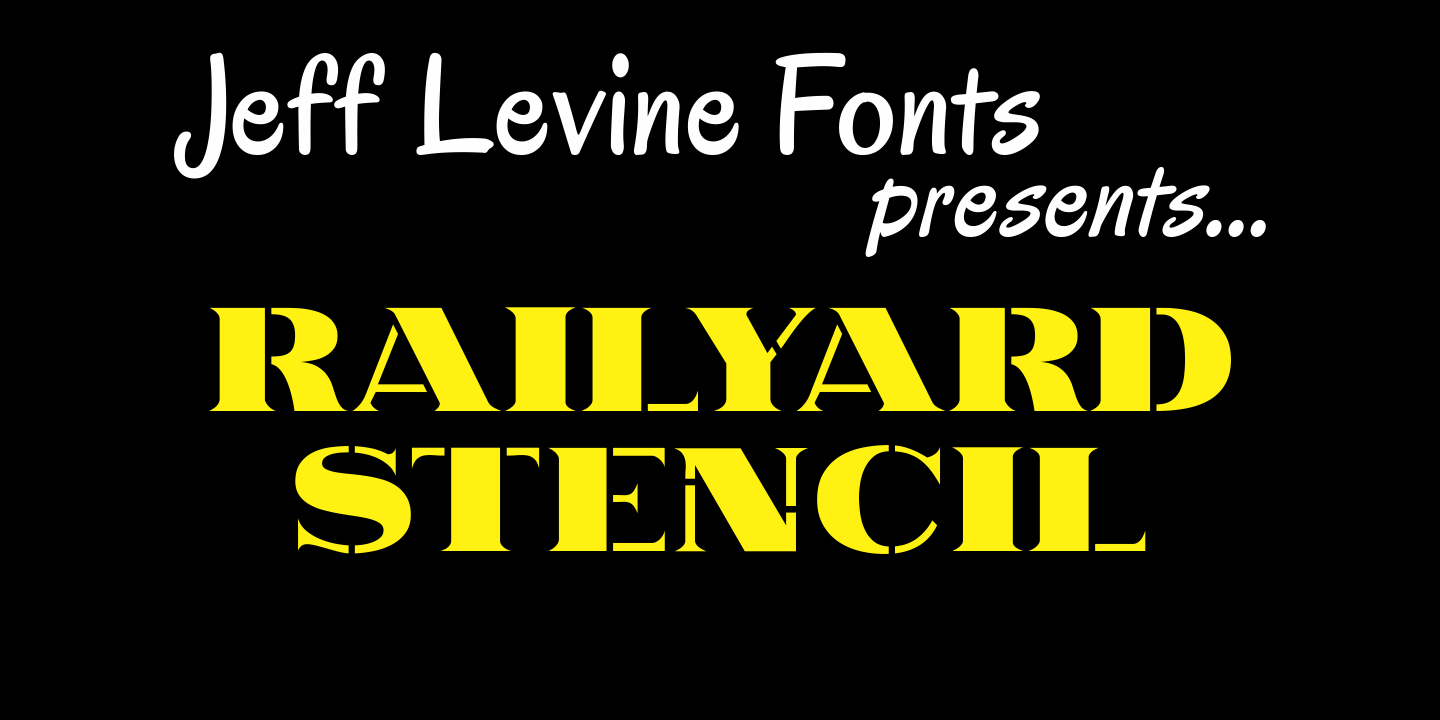
Railyard Stencil
Railyard Stencil JNL is a stencil variant of Decal JNL that was set aside for a long time in a forgotten work folder.
It's broad strokes and sharp serifs emulate the vintage look of old railway cars and other earlier forms of transportation.